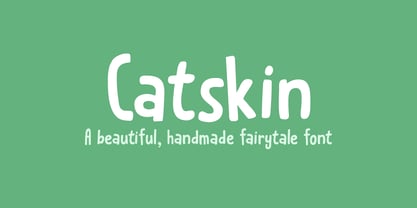
Catskin
by Hanoded
Catskin is a fairytale by The Brothers Grimm. The story is about a king who has a beautiful wife and daughter - you know, the basic fairytale stuff. Long story short: they all live happily ever after (except for the wife, who dies…).
Catskin is also a nice, handmade font. I like making fairytale fonts, especially since I have three kids, who love books. And when I see one of my fonts on the cover, I can tell them: ‘daddy made this’. #prouddaddy
Designers: David Kerkhoff
Publisher: Hanoded
Foundry: Hanoded
Design Owner: Hanoded
About Hanoded
Hanoded is run by Dutchman David Kerkhoff. His fonts are a mishmash of styles, as he just creates whatever pops into his head. You will find a lot of brush fonts in his collection, as his favourite tools are brushes and Chinese ink, with cartoon style fonts and script fonts complementing his repertoire. Aside from making fonts, David occasionally guides tours in far-flung places, renovates his '30's house and tries reasoning with his wife and (teenage) kids. Not an easy task!